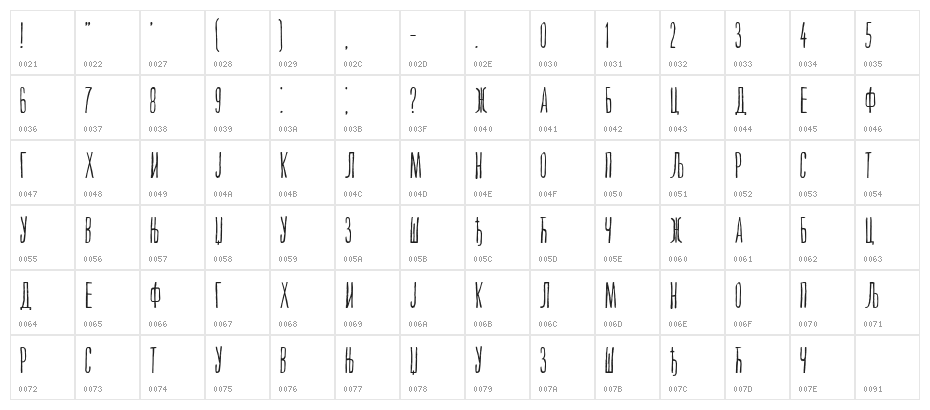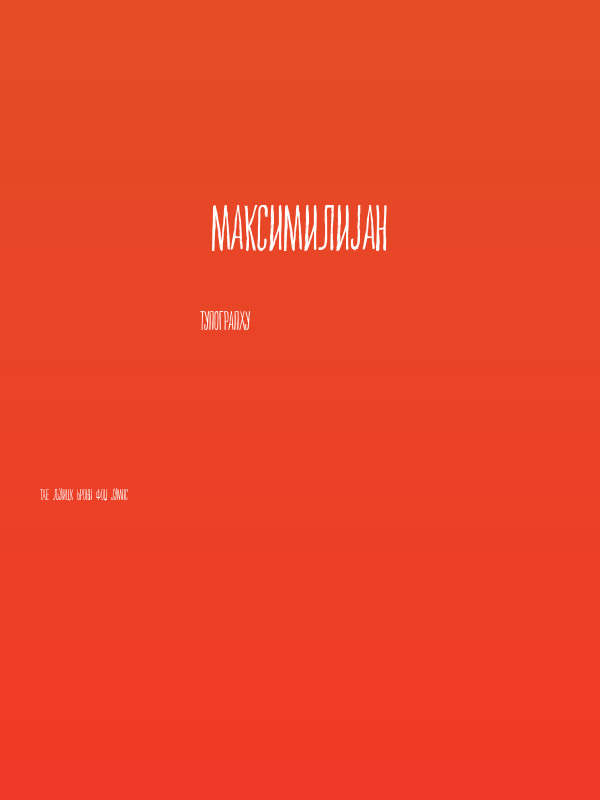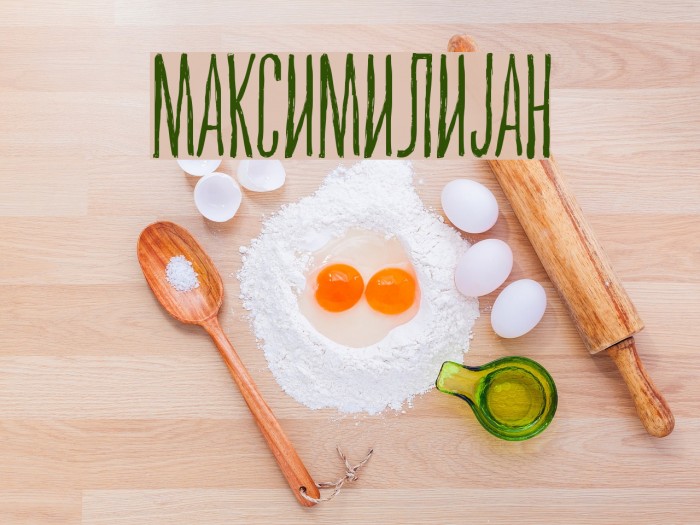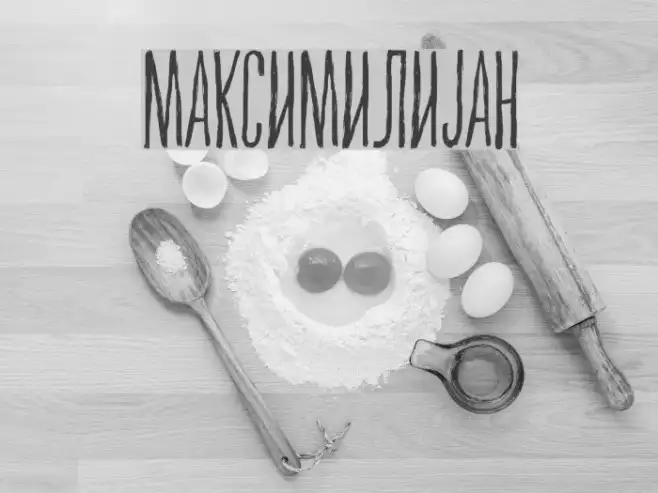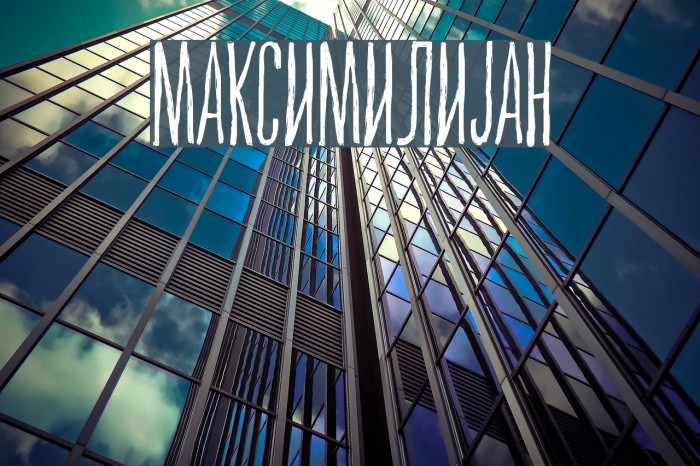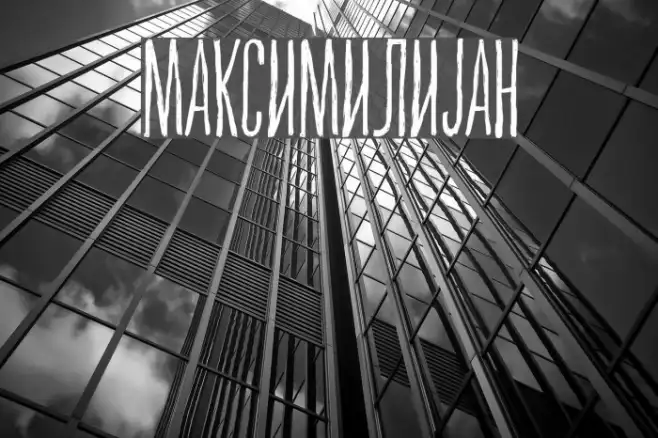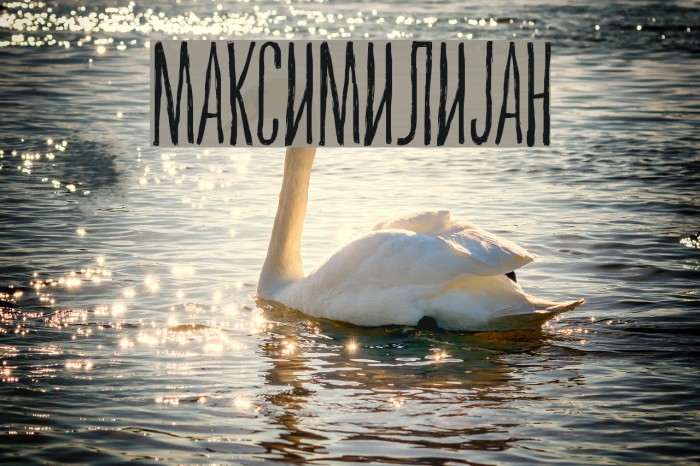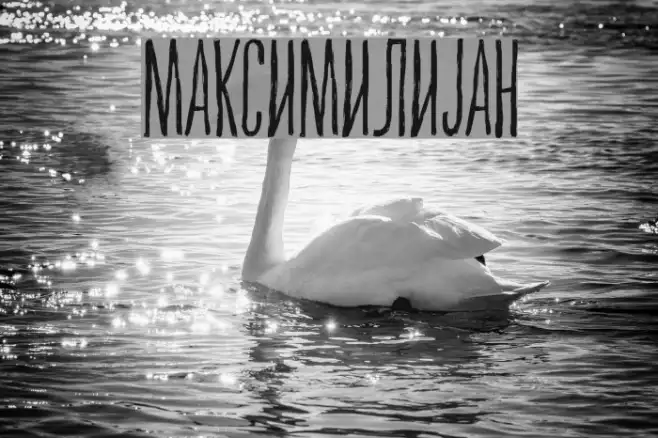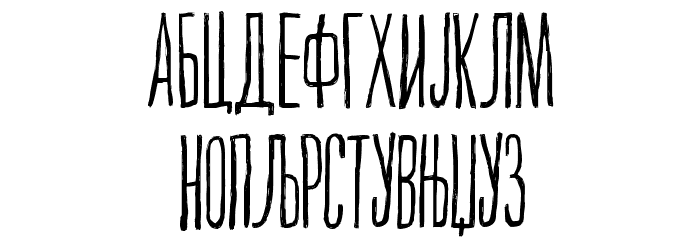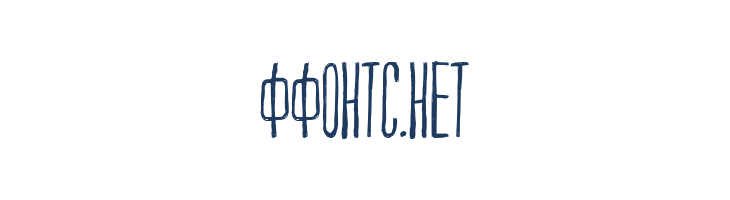
Maksimilijan Font
This font features a unique, hand-drawn style with a slightly distressed appearance, giving it a rustic and organic feel. The characters are tall and narrow, with uneven strokes that add to its handcrafted aesthetic. The uppercase and lowercase letters maintain a consistent style, while the numerals and special characters complement the overall design. This font's distinctive look makes it suitable for projects that require a touch of personality and creativity.
| Use Case | Logos, Posters, Creative projects |
| Proposed Projects | Ideal for branding, packaging, posters, and any creative projects that benefit from a handcrafted touch. |